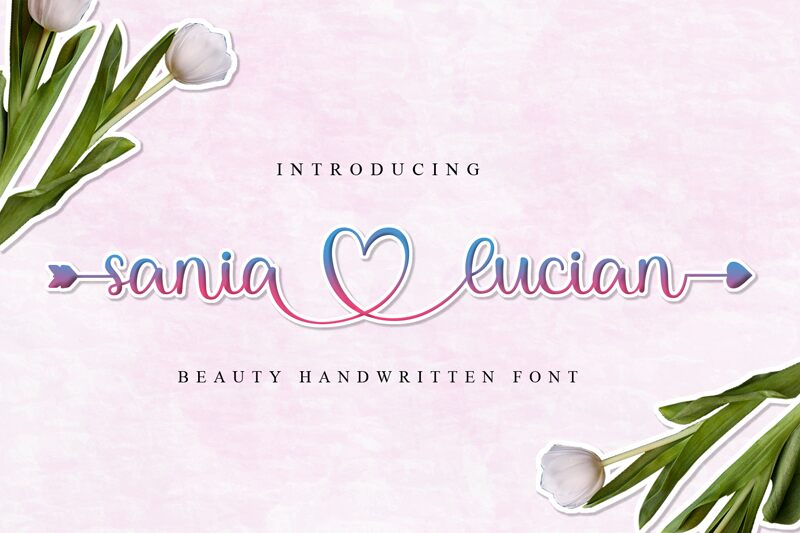
Sania lucian
Sania Lucian, a handwritten script font designed by Niyos, is perfect for any project that needs a unique touch. From posters to logos and greeting cards to wedding invitations, this font will add personality and charm.